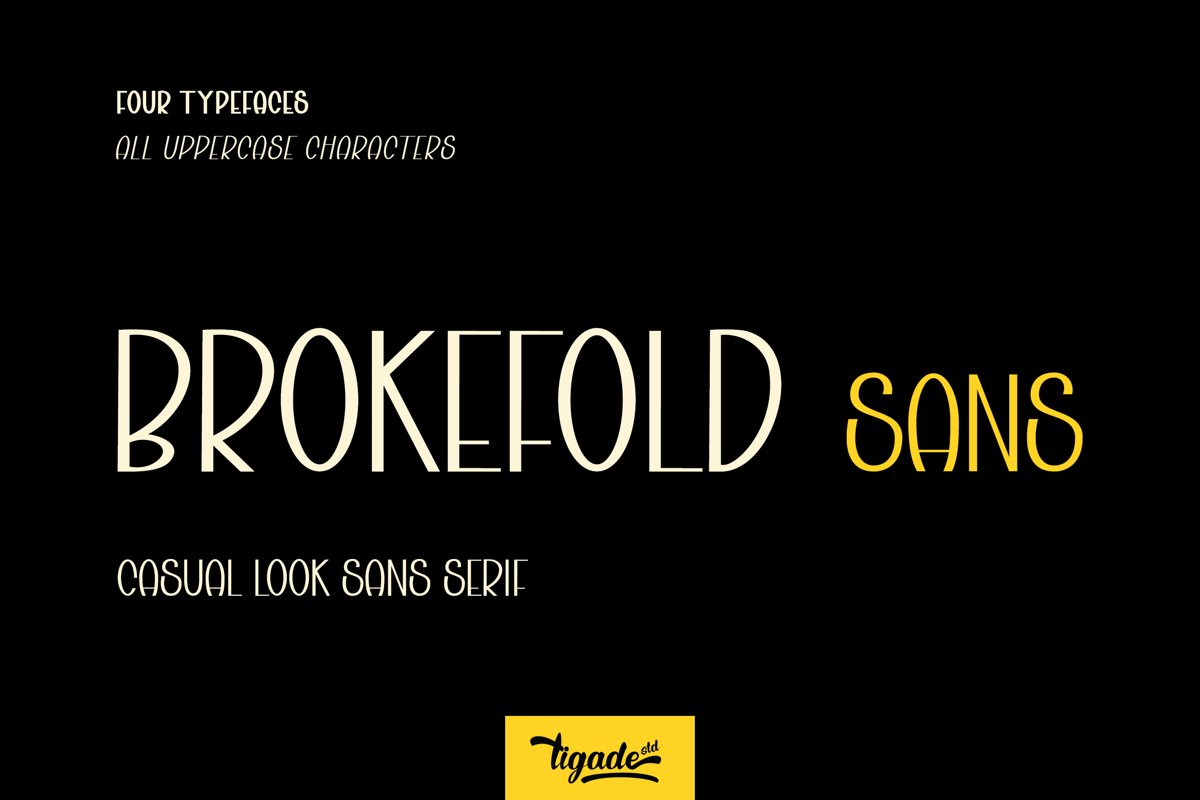
Brokefold Sans | Elegant & Fancy Sans Font
Brokefold Italic Sans
Brokefold Sans
Brokefold Bold Sans
Brokefold Bold Italic Sans
Brokefold Sans, is a Sans Serif font with combination of rounded and strong edges.
It's suited to cover various of tasks such as editorial to brand design, advertising, magazine layout and many more.
Brokefold consists with plenty OpenType features to ease your tasks. Brokefold comes with all uppercase shapes. However, it comes with complete characters as well as international characters.